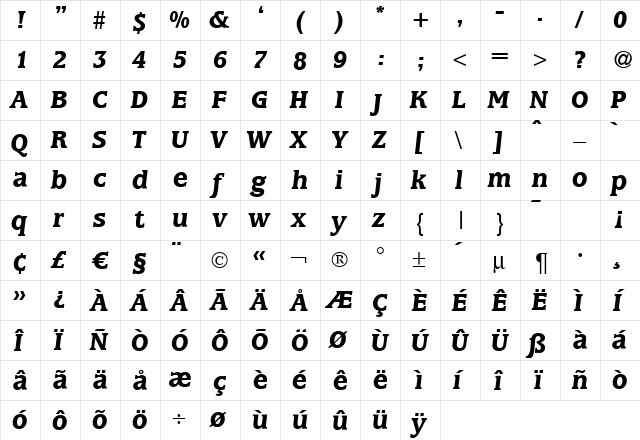
M650-Roman BoldItalic Font Preview
Design Context for M650-Roman Typeface
M650-Roman offers clean, dependable letterforms without strong stylistic allegiance, making it a practical choice for designers who need flexibility. The dynamic lean of this cut emphasises speed and emphasis in any layout. The heavy weight commands attention and anchors typographic hierarchies.
Pro Tip: Try M650-Roman for annotation and caption copy alongside an upright companion — the contrast in angle creates a dynamic but ordered typographic system.